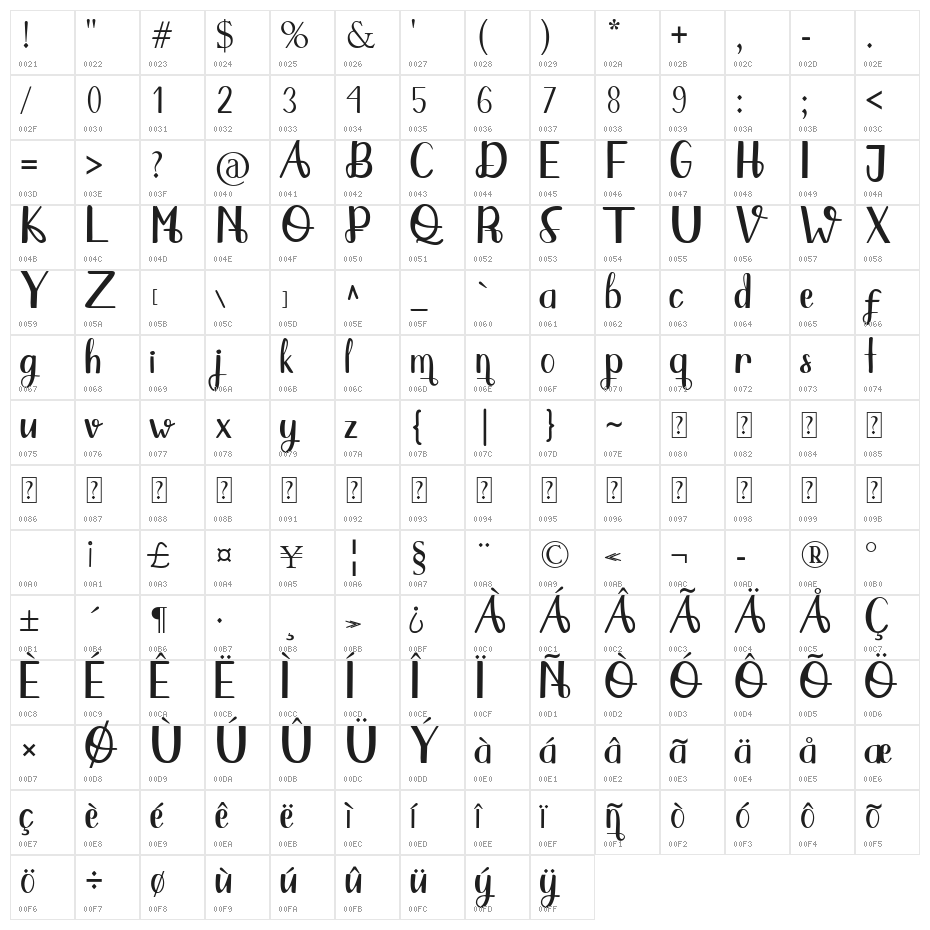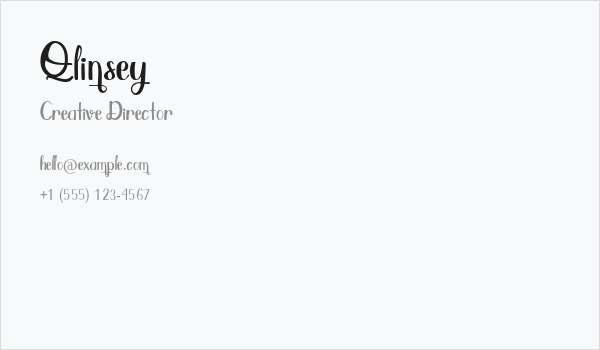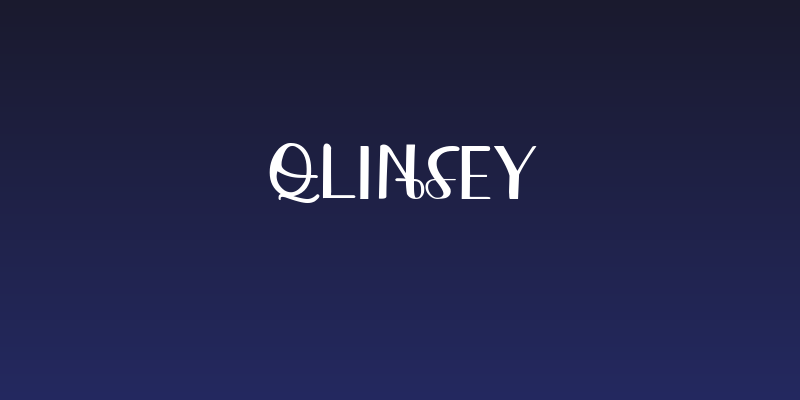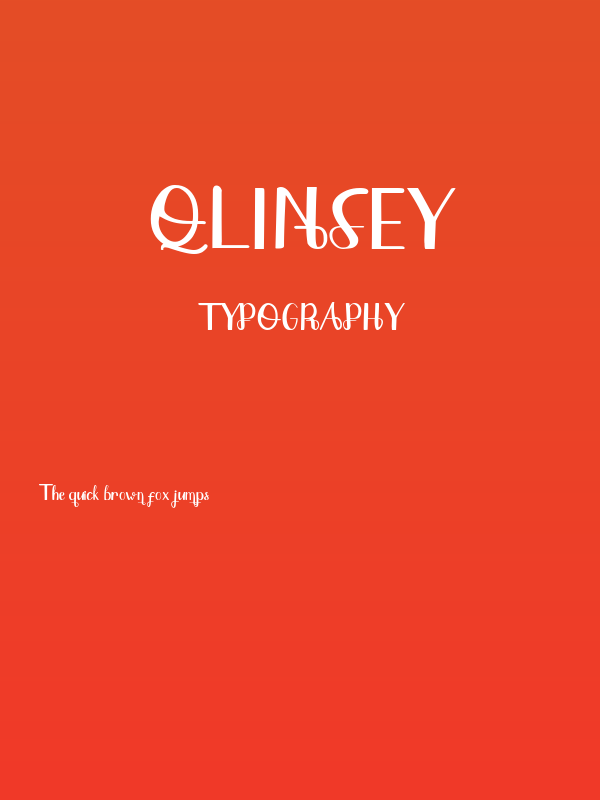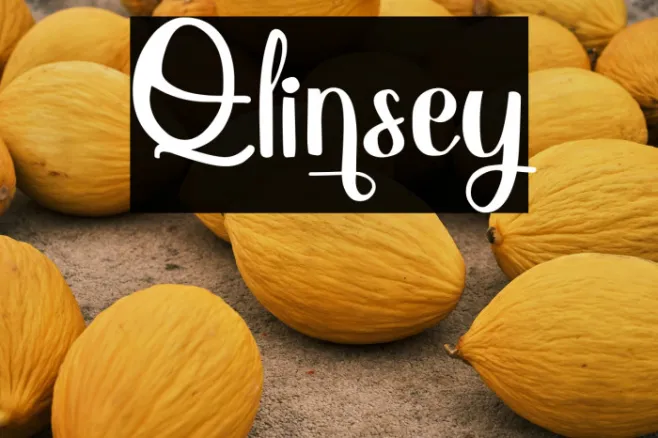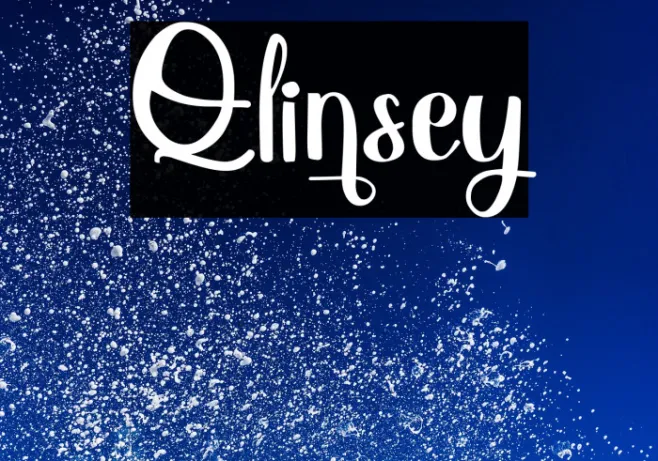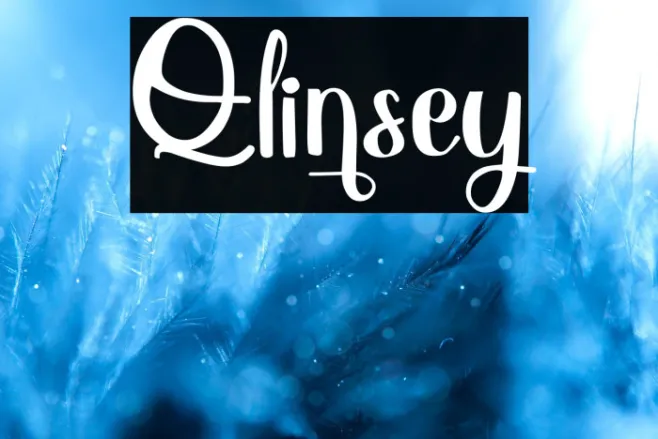
Qlinsey Font
Qlinsey Description
This font features a playful and whimsical design, characterized by its unique blend of script and sans-serif elements. The uppercase letters exhibit a bold and artistic flair, with some characters incorporating loops and swirls that add a touch of elegance and creativity. The lowercase letters maintain a consistent style, with smooth curves and a slightly condensed appearance. Numbers are clear and legible, while special characters retain the font's distinctive style, making them suitable for a variety of creative applications. The overall look is modern and stylish, perfect for projects that require a touch of personality and charm.
QLINSEY UPPERCASE
QLINSEY LOWERCASE
QLINSEY OTHER CHARS
| Proposed Projects | Ideal for branding, invitations, greeting cards, and creative posters. |